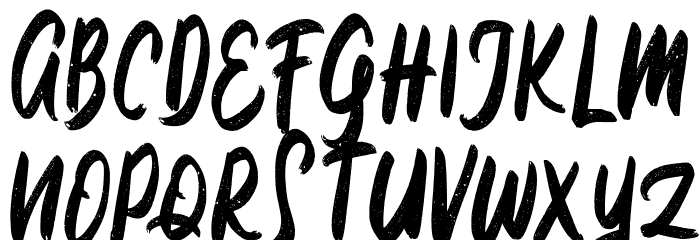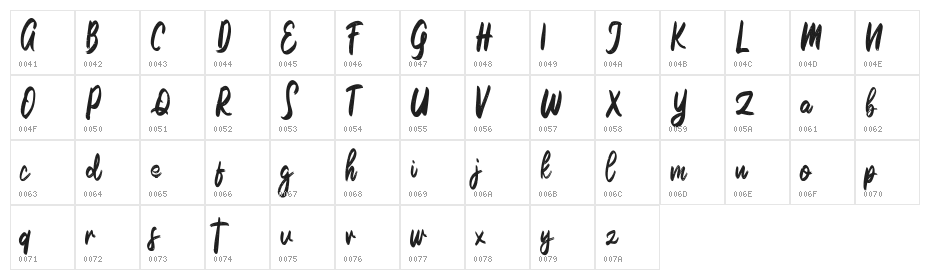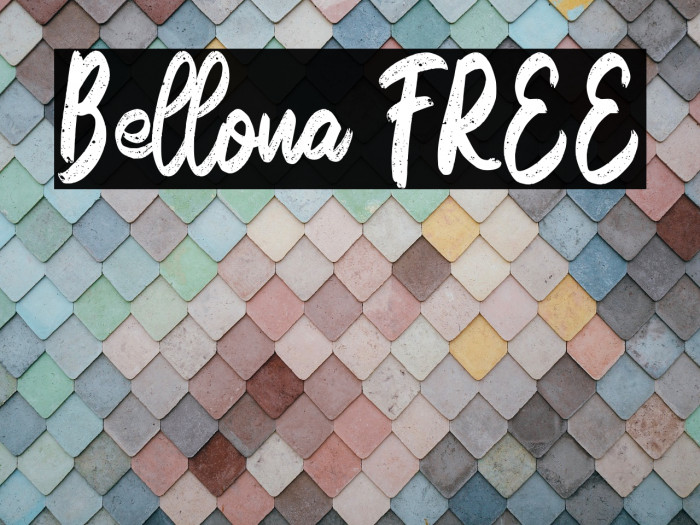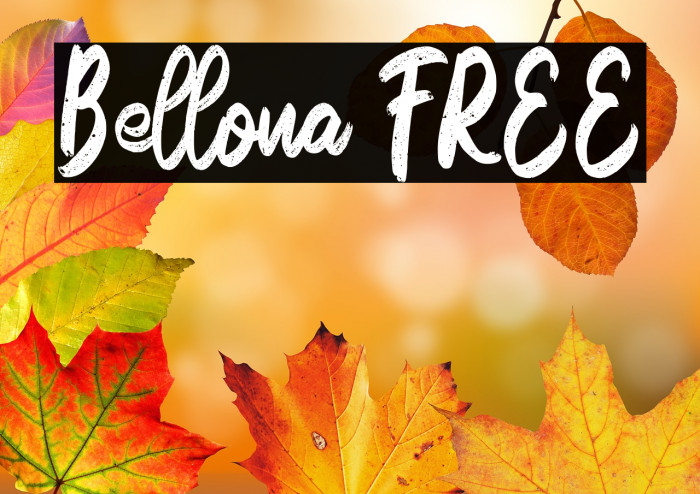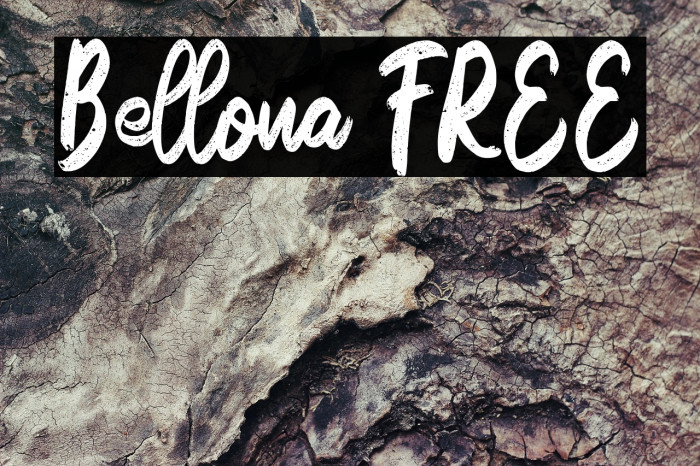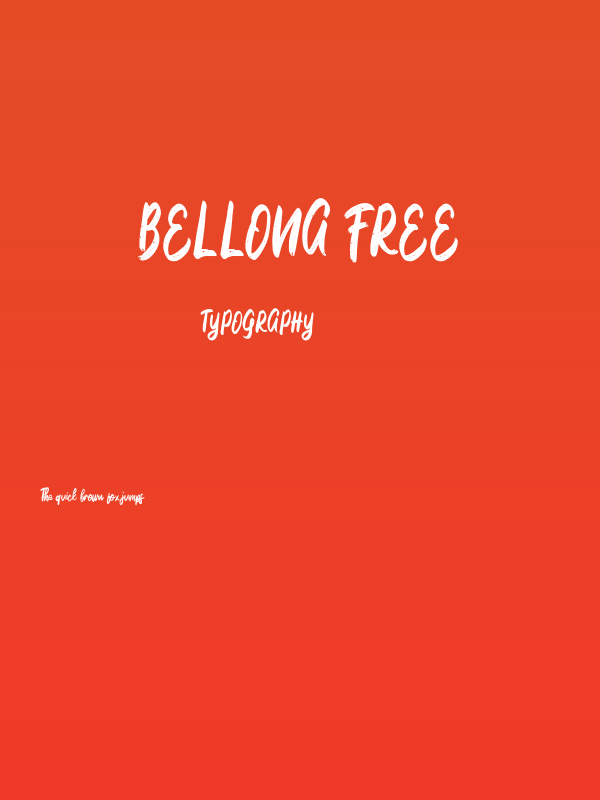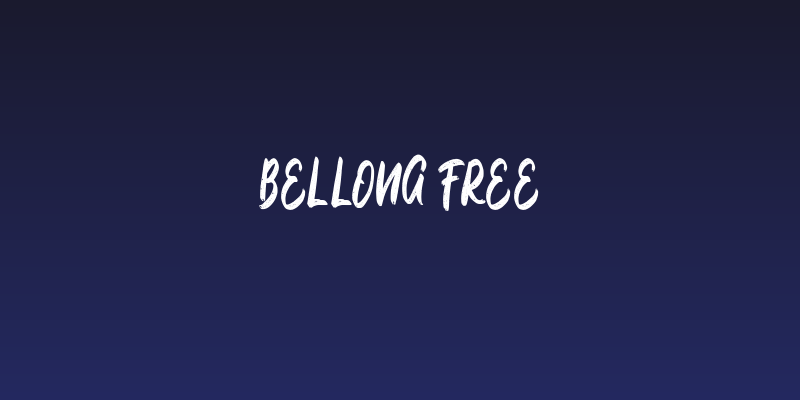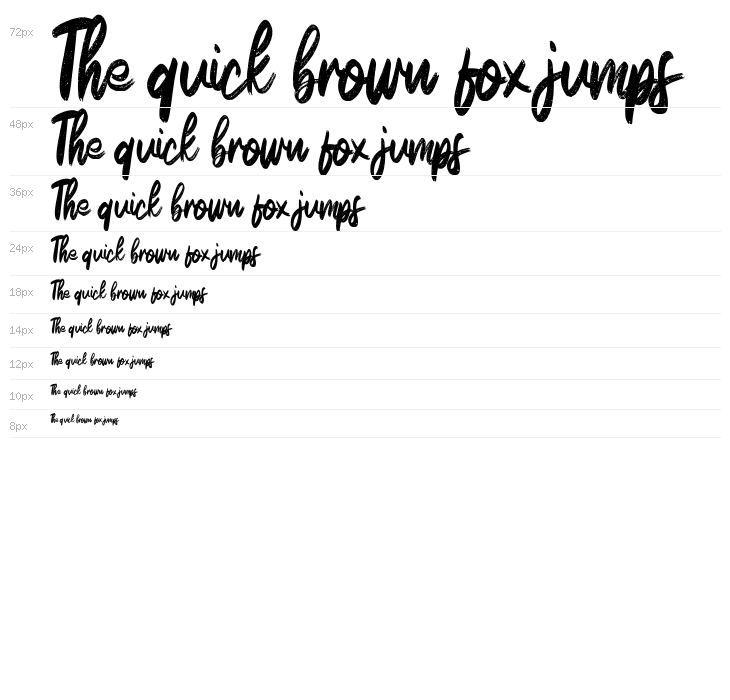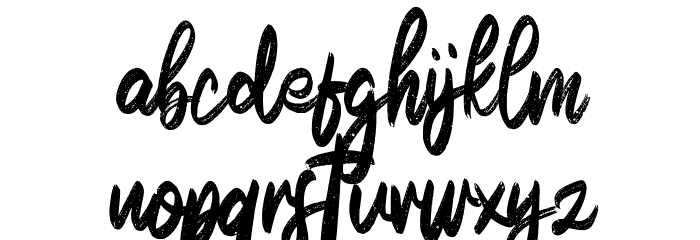
Bellona FREE Font
Bellona FREE Description
This font exhibits a bold, brush-style aesthetic with a textured, distressed appearance. The uppercase and lowercase letters are crafted with a dynamic, flowing script that conveys a sense of energy and movement. The strokes are thick and uneven, adding a handcrafted feel that is both artistic and expressive. The font maintains a consistent style across all characters, including numbers and special symbols, which are designed with the same brush-like texture. This font is ideal for projects that require a bold, eye-catching display with a personal touch.
| Proposed Projects | Ideal for branding, posters, social media graphics, and any design requiring a bold, artistic touch. |